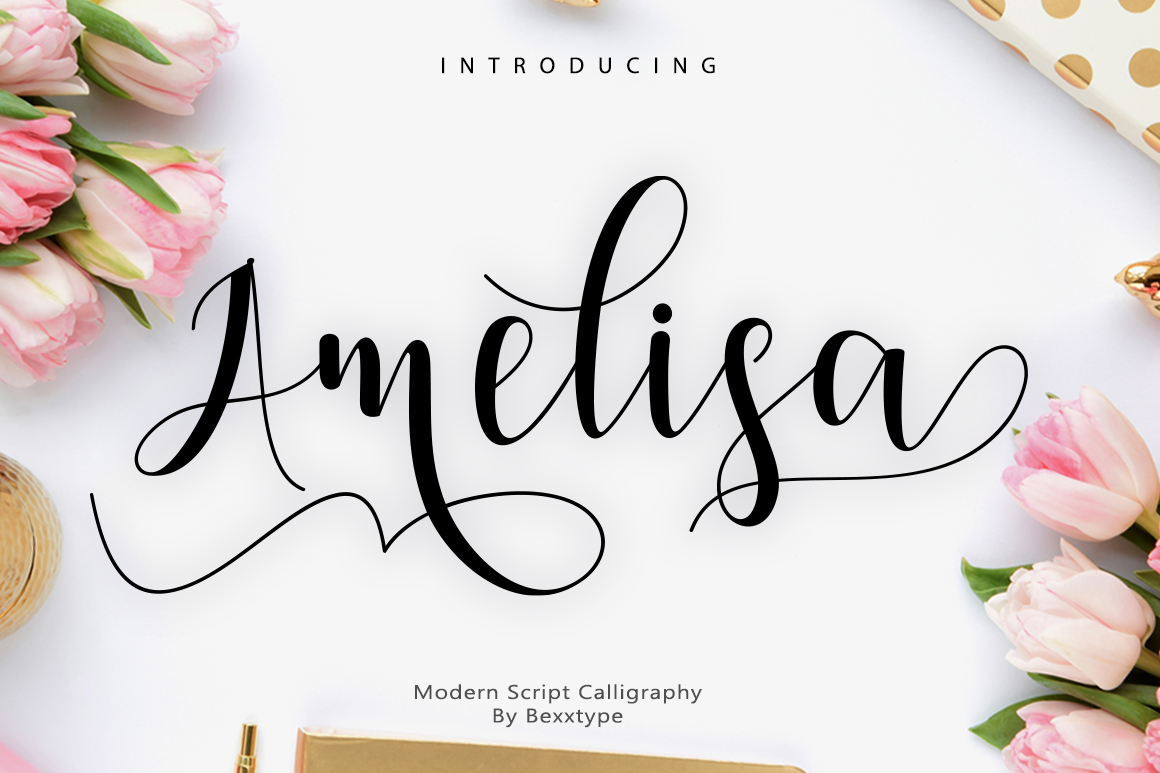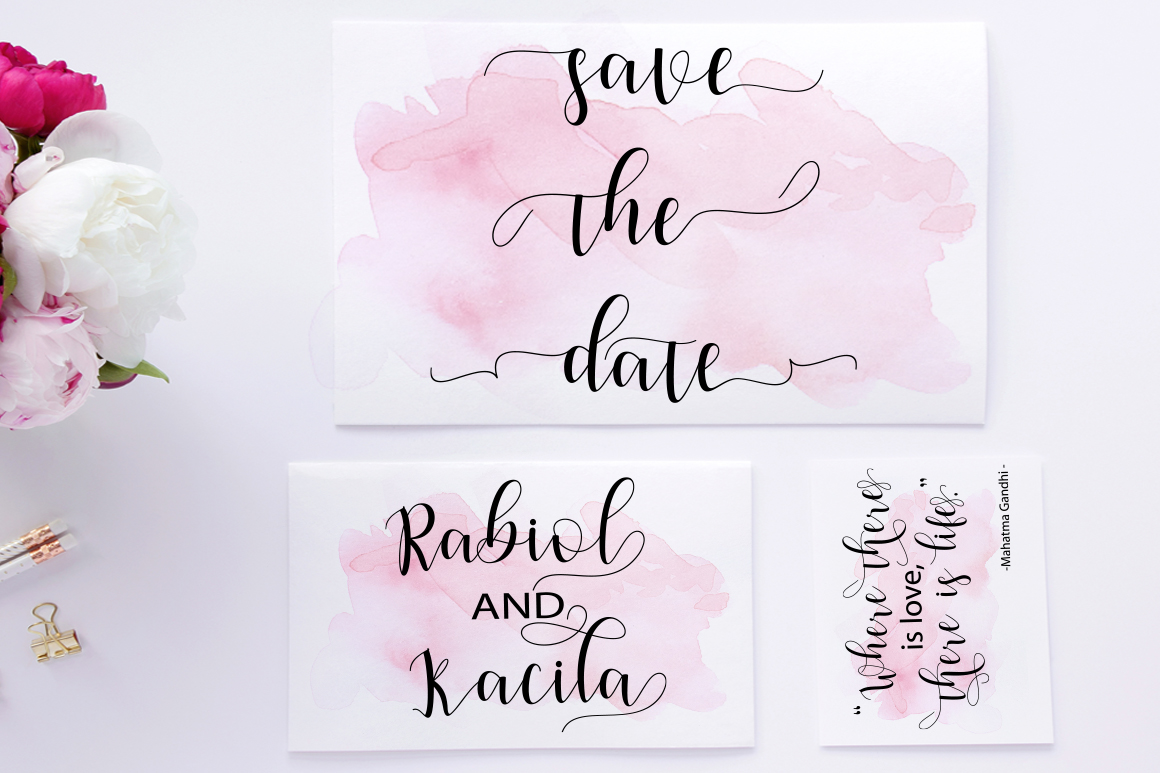
Amelisa Script Font
Amelisa Script a new fresh & modern script with a handmade calligraphy style, decorative characters and a dancing baseline! So beautiful on invitation like greeting cards, branding materials, business cards, quotes, posters, and more!!
Amelisa Script come with 630+ glyphs. The alternative characters were divided into several Open Type features such as Swash, Stylistic Sets, Stylistic Alternates, Contextual Alternates. The Open Type features can be accessed by using Open Type savvy programs such as Adobe Illustrator, Adobe InDesign, Adobe Photoshop Corel Draw X version, And Microsoft Word. And this Font has given PUA unicode (specially coded fonts). so that all the alternate characters can easily be accessed in full by a craftsman or designer.